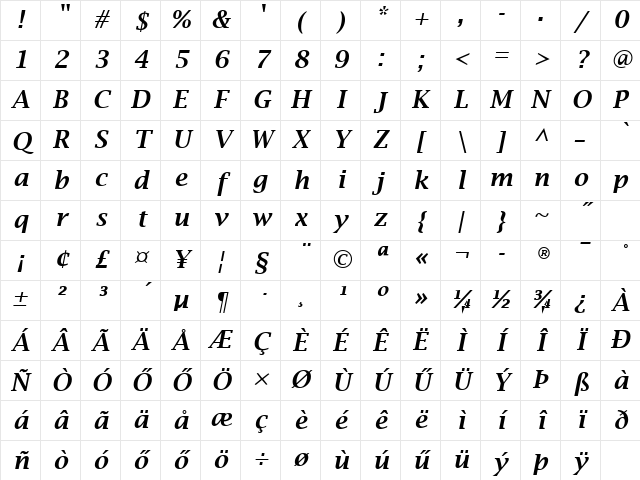
H_Lucida Bright DemiBoldItalic
Design Context for H_Lucida Bright
H_Lucida Bright is a composed and adaptable typeface that performs quietly and consistently across a wide range of design contexts. The slanted form adds forward momentum and visual energy. Its bold stroke weight gives it real presence on the page.